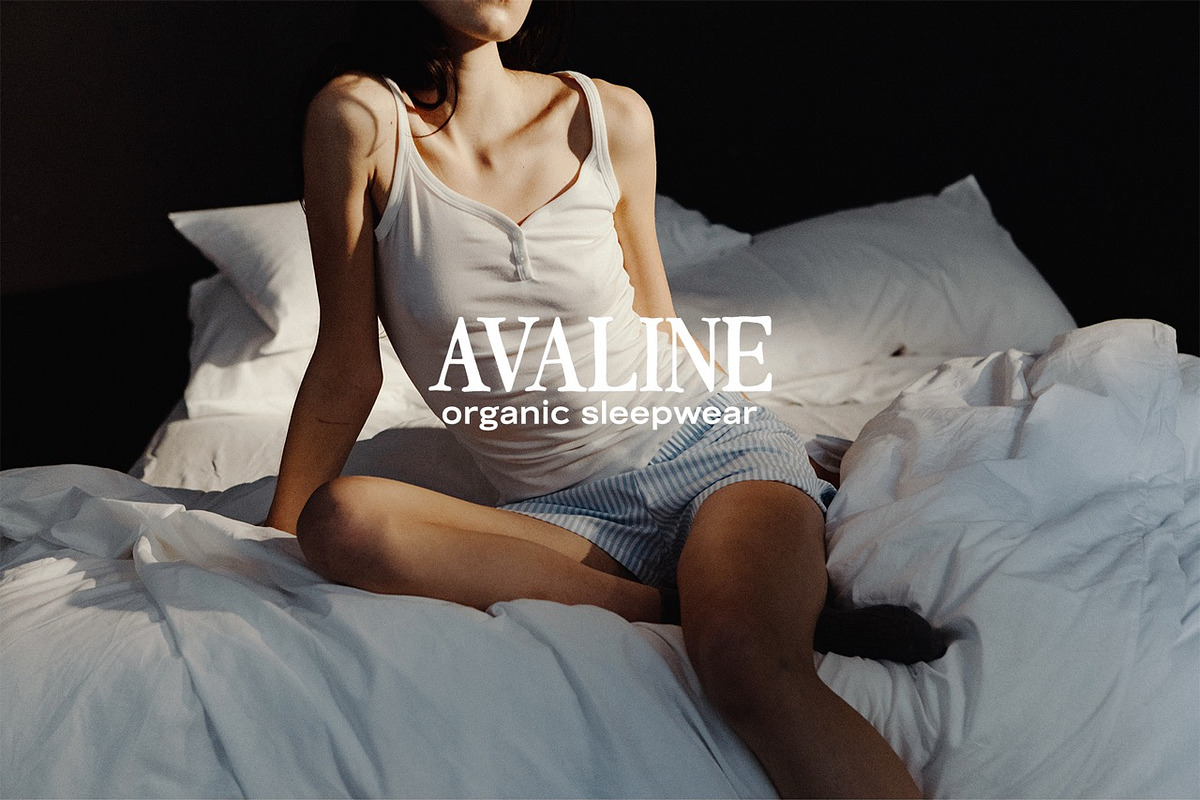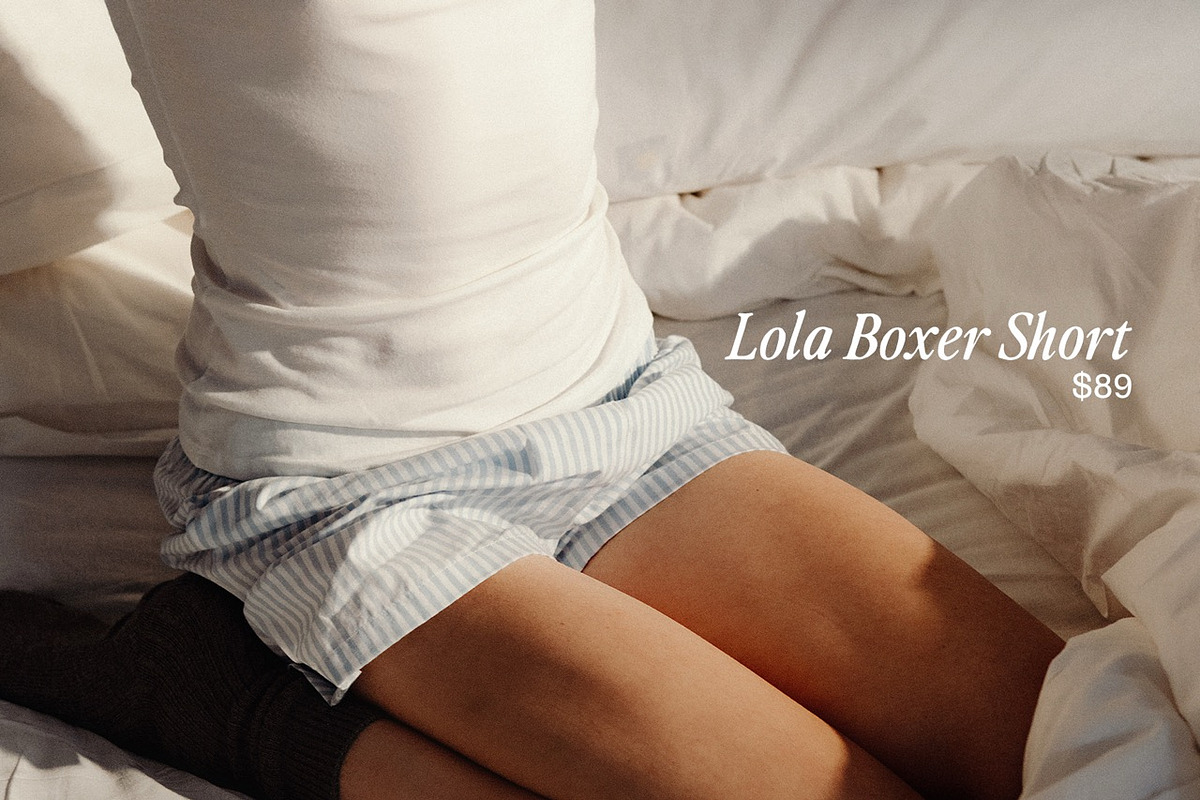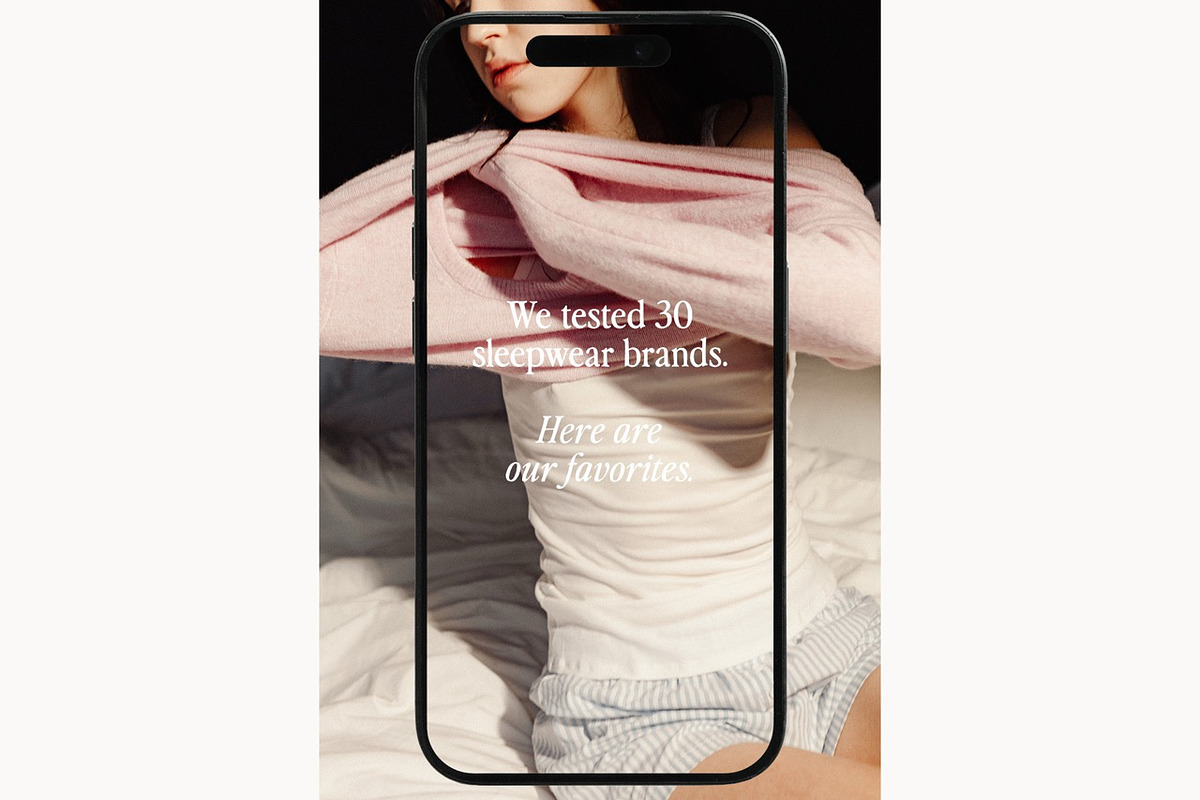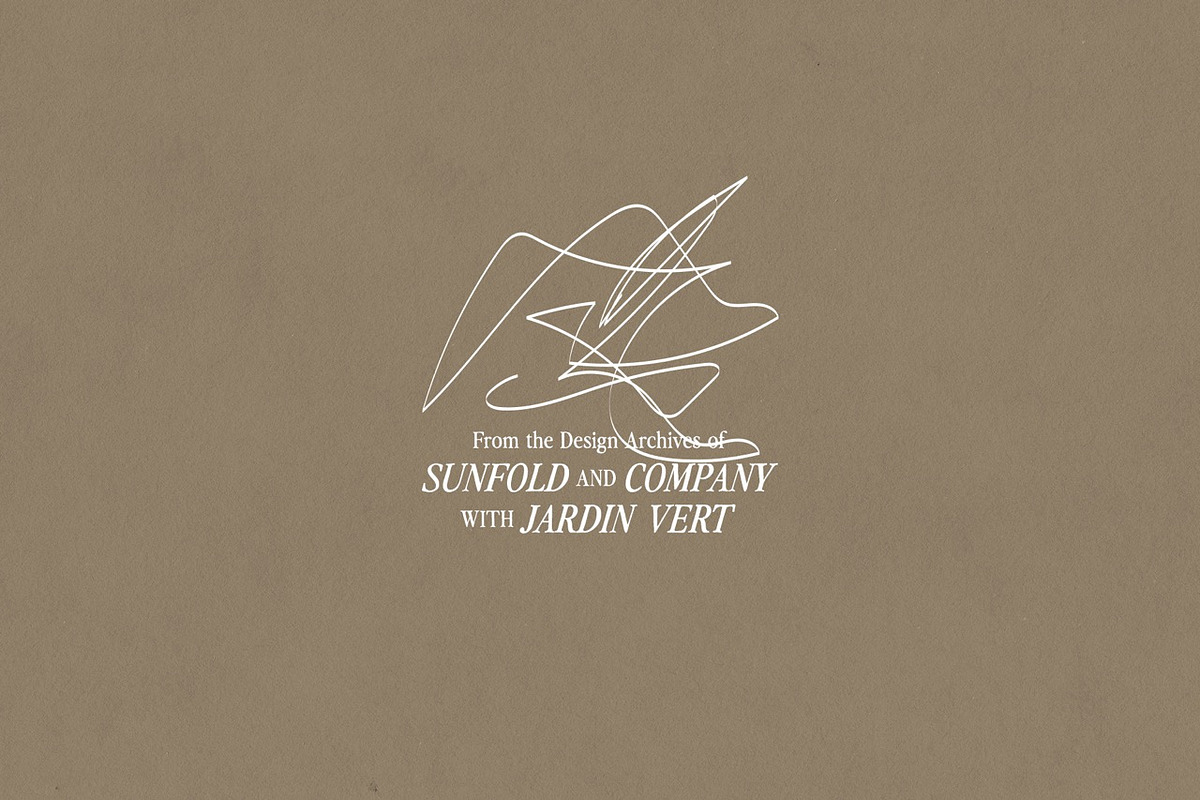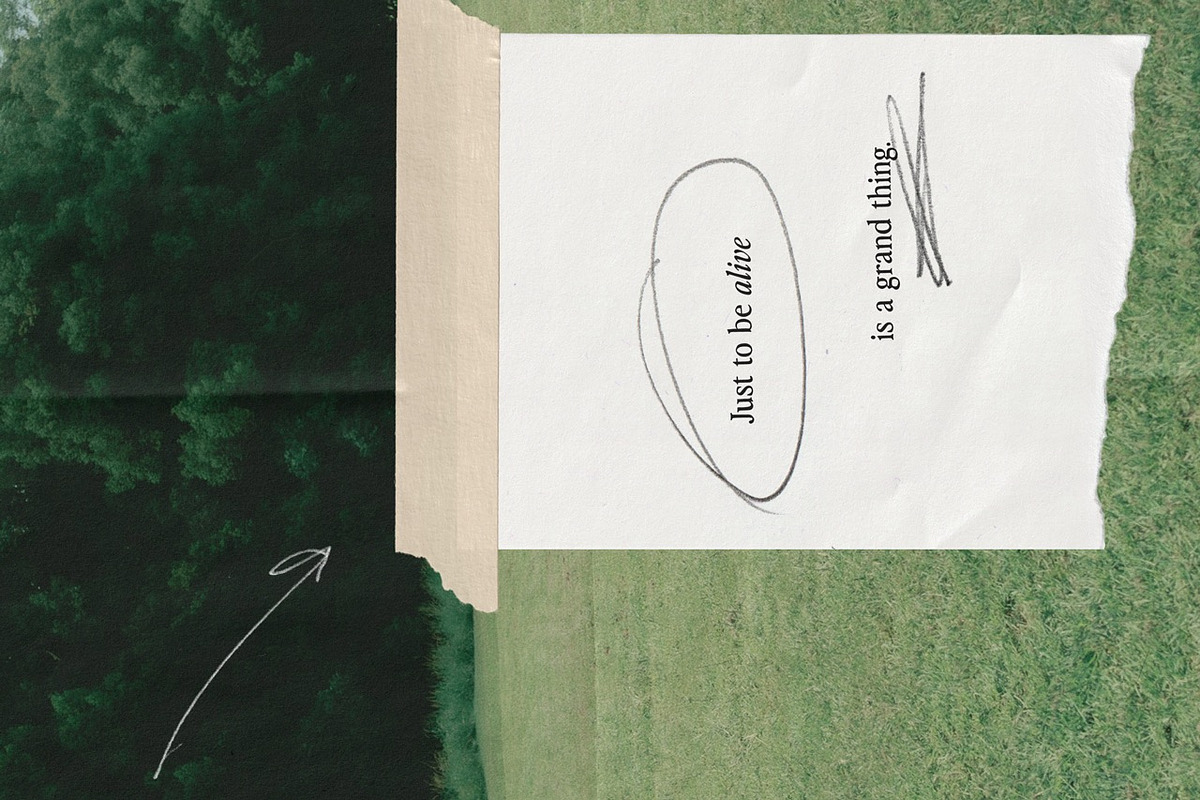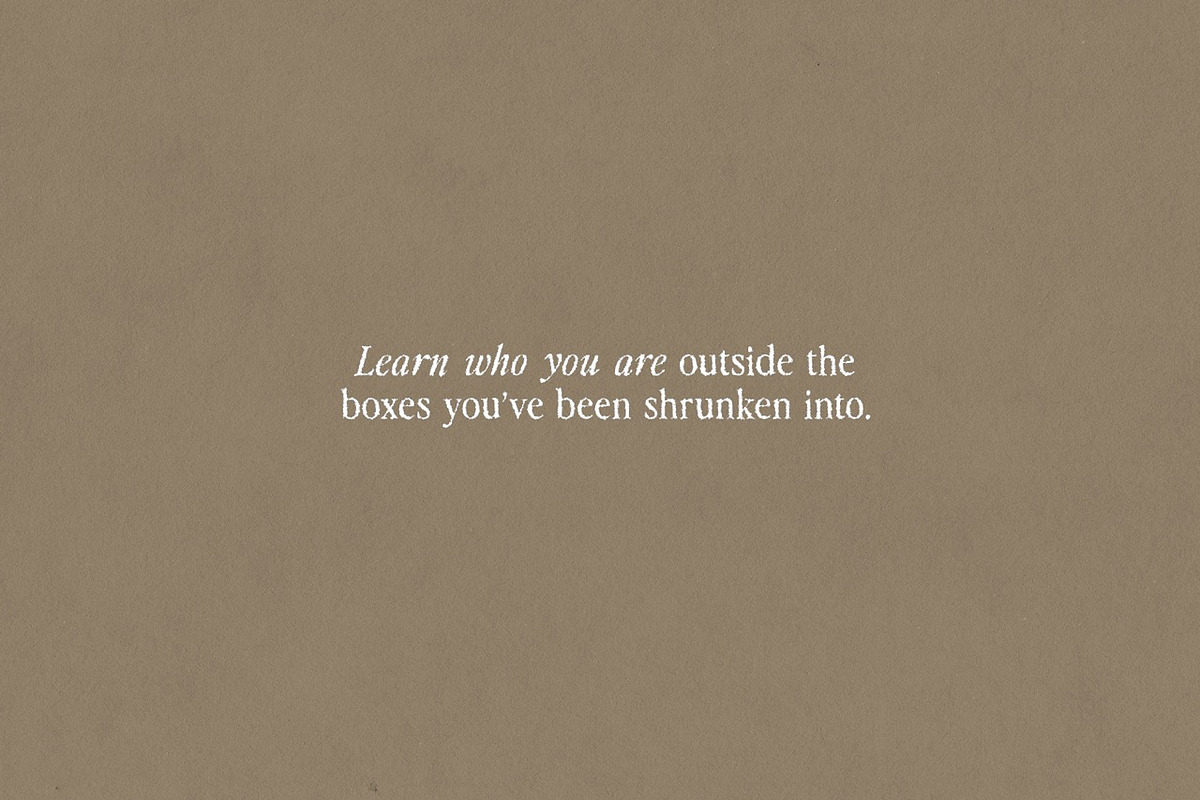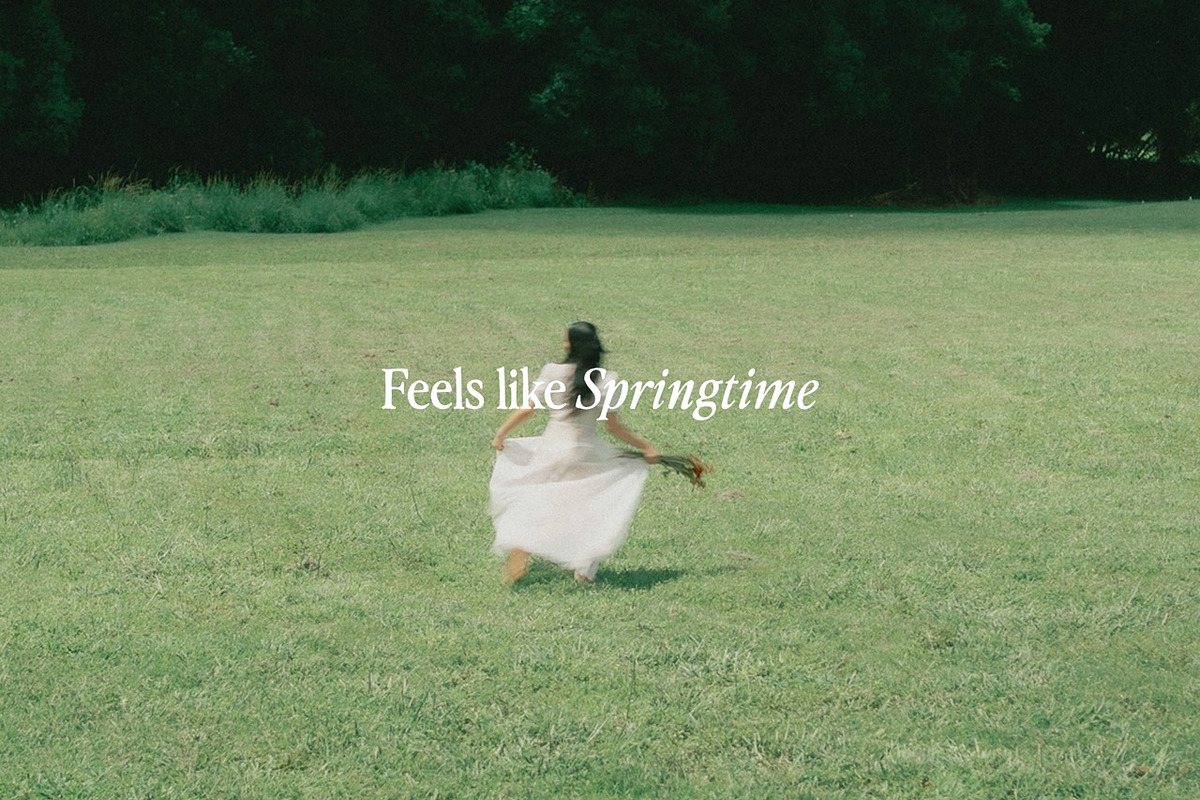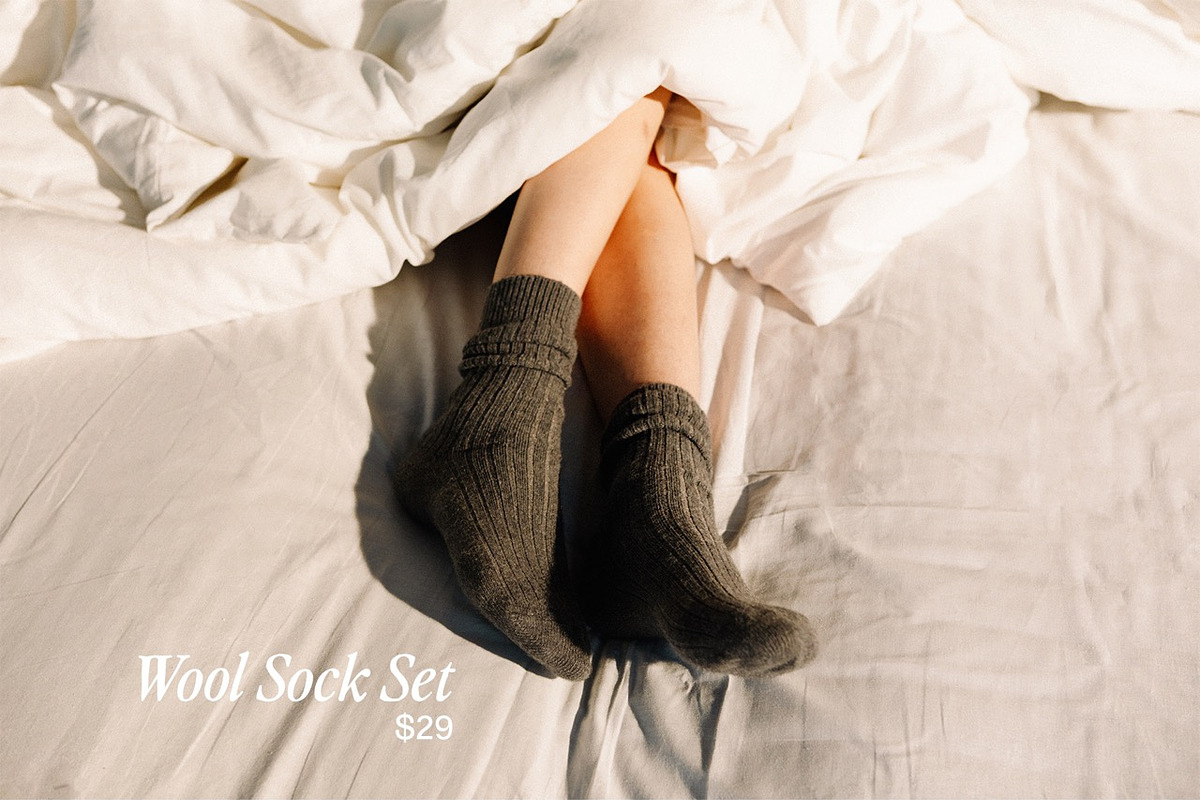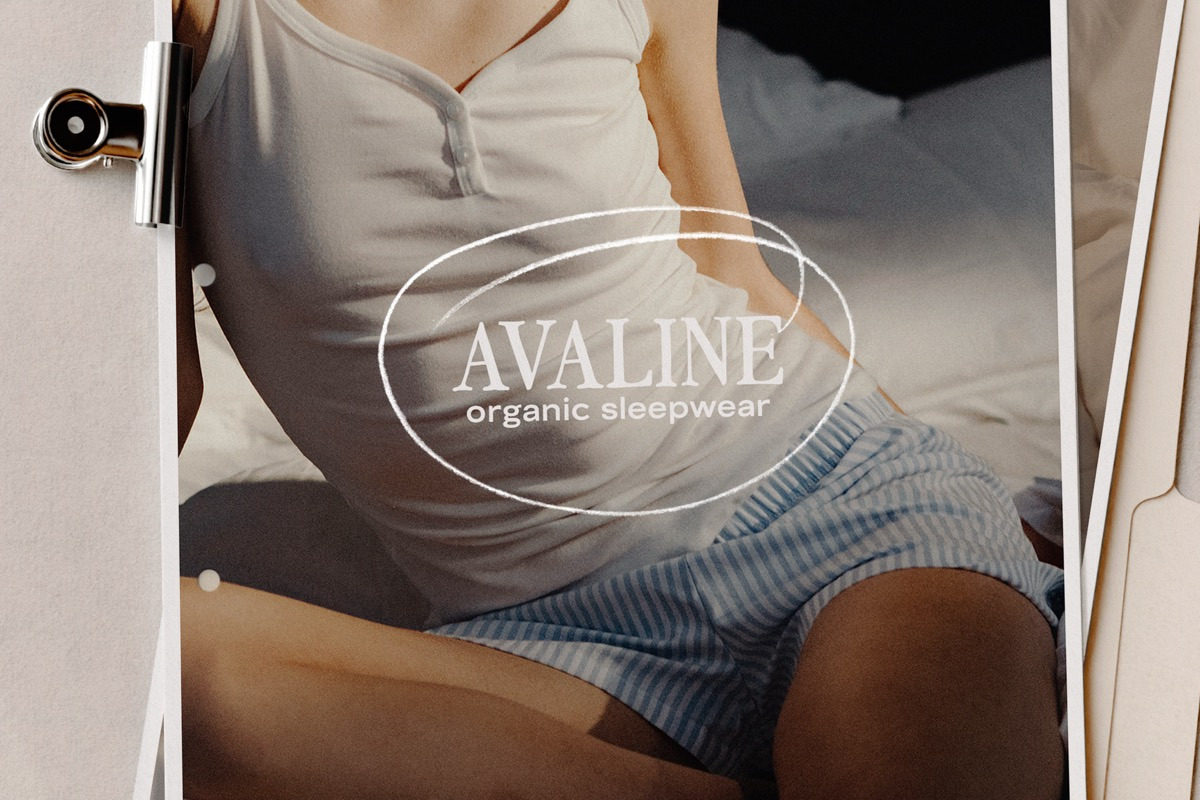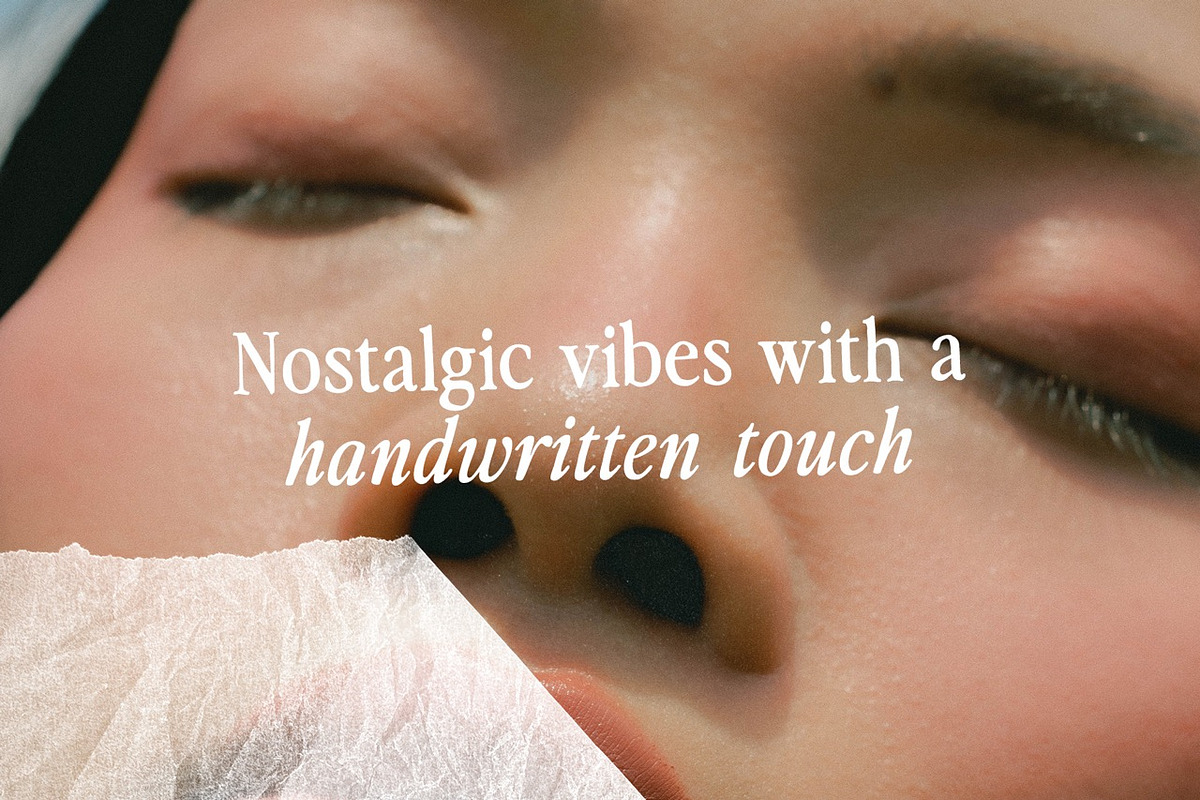
Perfectly Nineties Handwritten
The handwritten sister to your favorite typeface.
Perfectly Nineties Handwritten is a single-weight display face with genuine inky texture and the kind of imperfect charm that only comes from something made by hand. Released as a natural extension of the best-selling Perfectly Nineties, the handwritten edition keeps everything you loved about the original — the warmth, the nostalgia, the elegance — and adds a layer of organic humanity that feels exactly right for this moment.
Each letterform carries subtle ink variation, a softly irregular baseline, and the texture of a marker that actually touched paper. Roman and italic styles are included, giving you expressive range within a single weight.
Perfectly Nineties Handwritten was designed for brands and designers who understand that the most sophisticated thing a typeface can do right now is feel human. In a landscape saturated with geometric precision and AI-generated polish, handwritten type is having a cultural moment — and this is the version of that trend that doesn’t sacrifice craft for character.
Functionally, Perfectly Nineties Handwritten also includes coded contextual alternates to help avoid letter repeat patterns, and includes alternates for each letter and number.
Where it works beautifully: Set it large on a lifestyle brand’s packaging and it reads as considered, not casual. Use it in a beauty brand’s visual identity and it brings warmth without sacrificing elegance. Drop it into editorial layouts for a nostalgic pull that feels editorial. It’s equally at home on social media graphics, web headers, luxury print pieces, and branded stationery.
The contrast is the point. Pair it with a clean sans-serif (or even a mono) and the handwritten quality reads as intentional luxury, or let it carry a full composition on its own and the inky texture does the atmospheric heavy lifting.